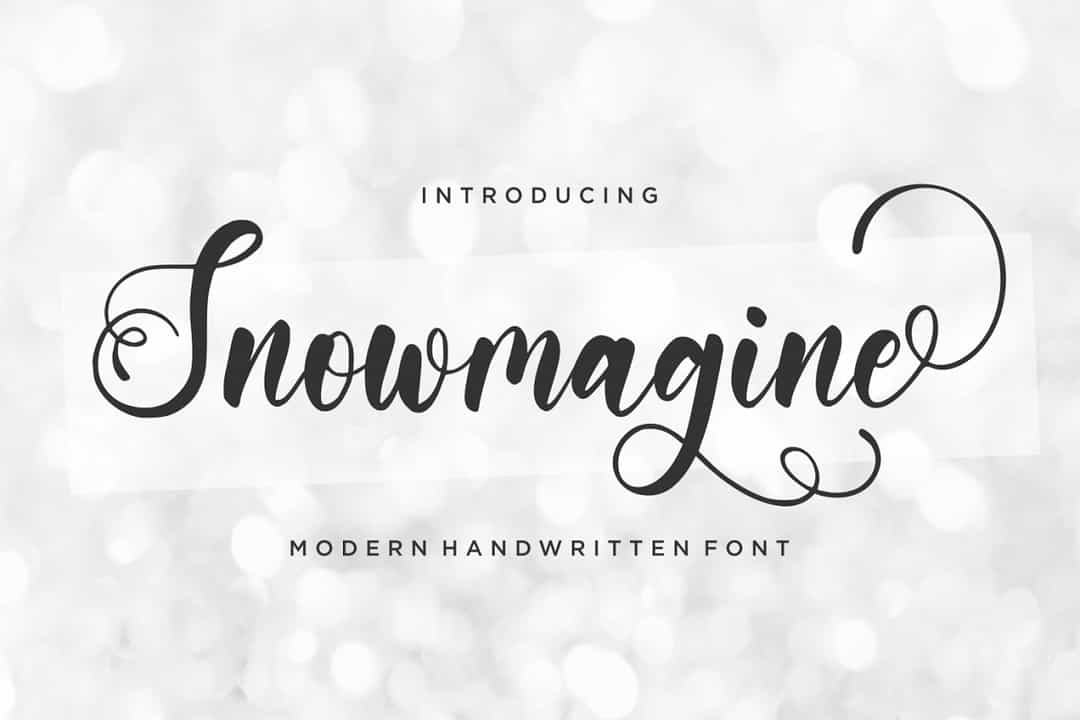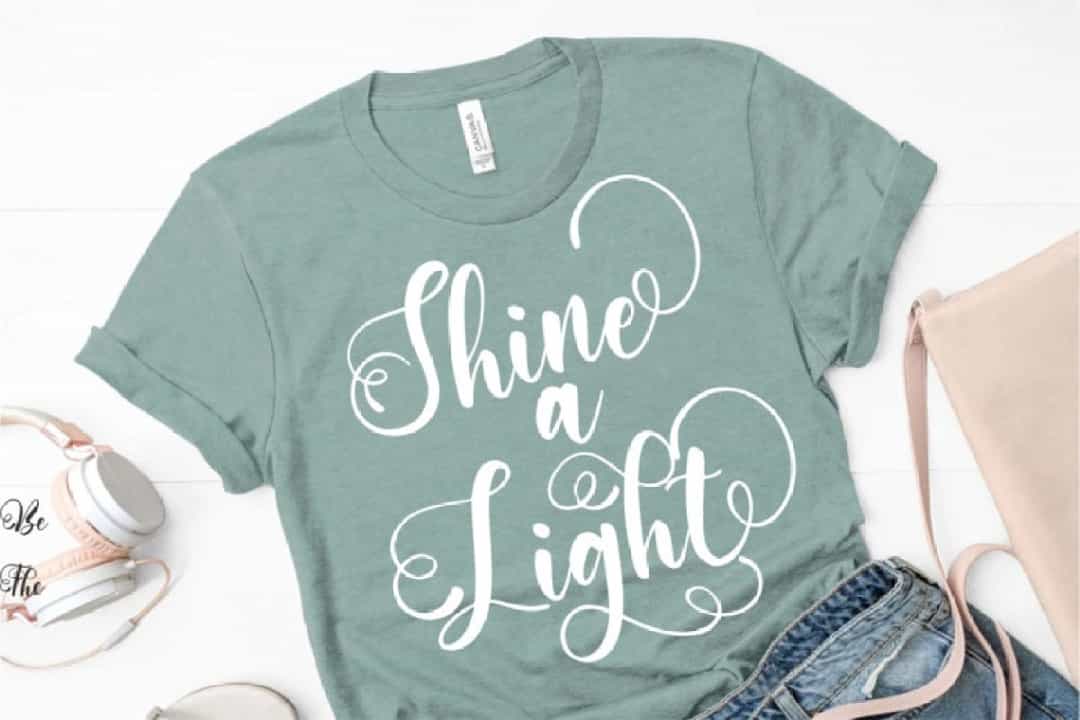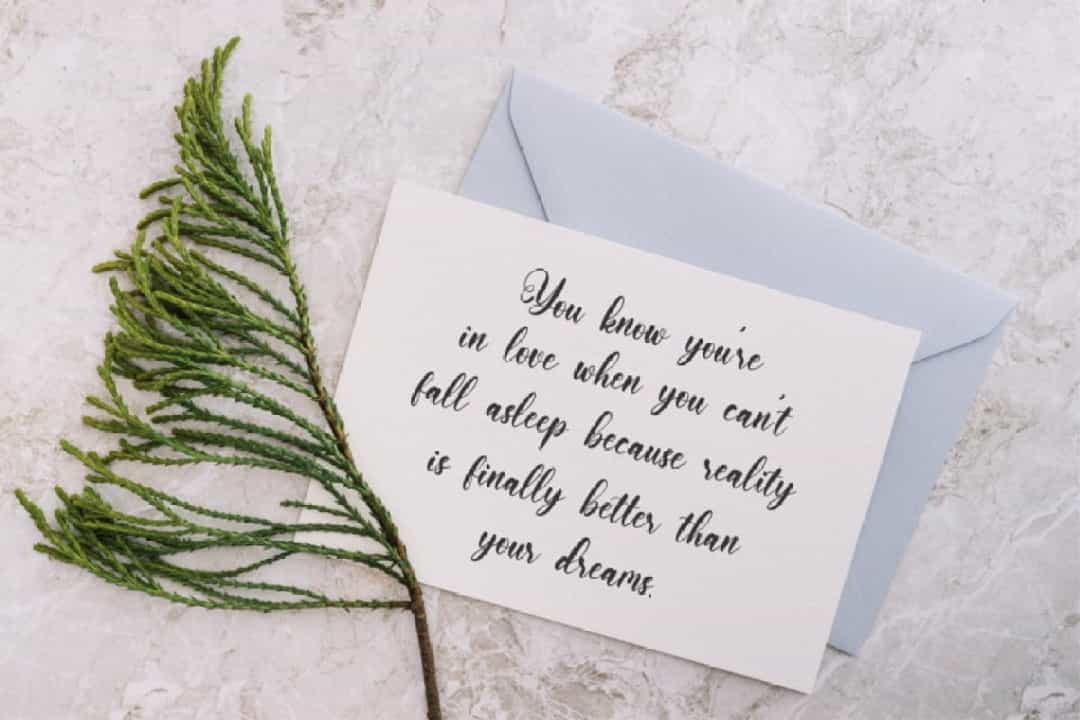
Snowmagine can be described as an attractive handwritten font. It is ideal for branding, packaging, product packaging projects, weddings and social media, or simply writing words onto backgrounds.